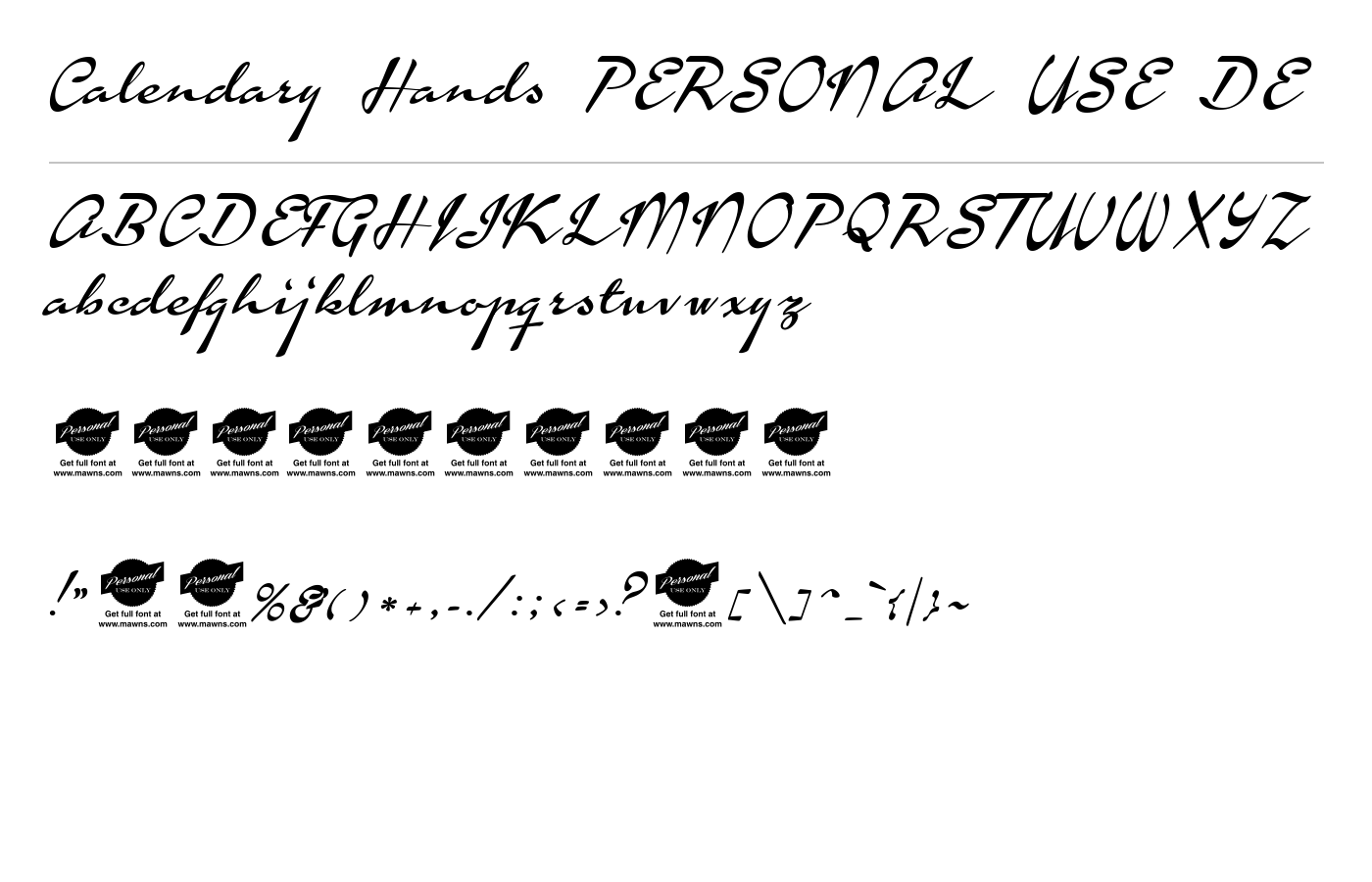
Calendary Hands PERSONAL USE DE is an elegant script font with a handwritten feel, featuring smooth, flowing strokes and slightly varied line thickness that add a natural, personal touch. Its tall x-height and distinct letterforms, including stylish uppercase characters and single-story lowercase letters, make it ideal for invitations, branding, and creative projects seeking a refined yet approachable look. This font works best in designs where a graceful, handcrafted aesthetic enhances the message, such as logos, packaging, or editorial headlines.
Calendary Hands PERSONAL USE DE Font
About Calendary Hands PERSONAL USE DE Font
| Font family | Calendary Hands PERSONAL USE DE Font |
| Designer | Måns Grebäck |